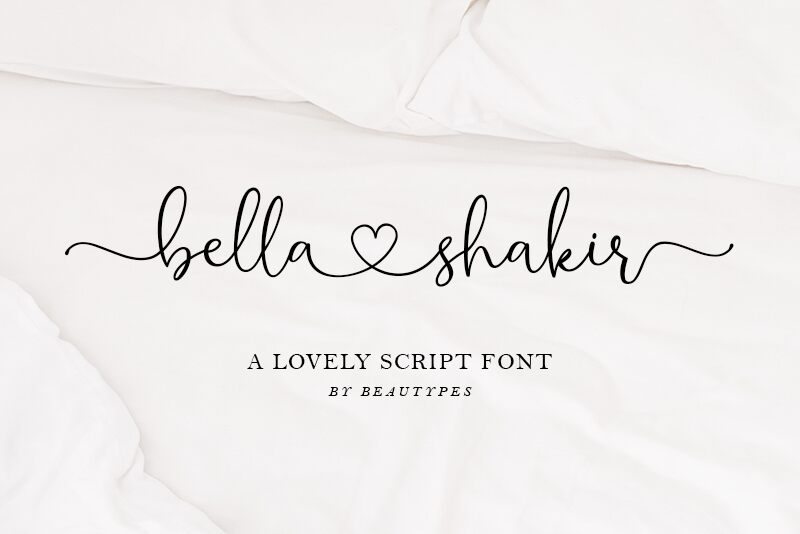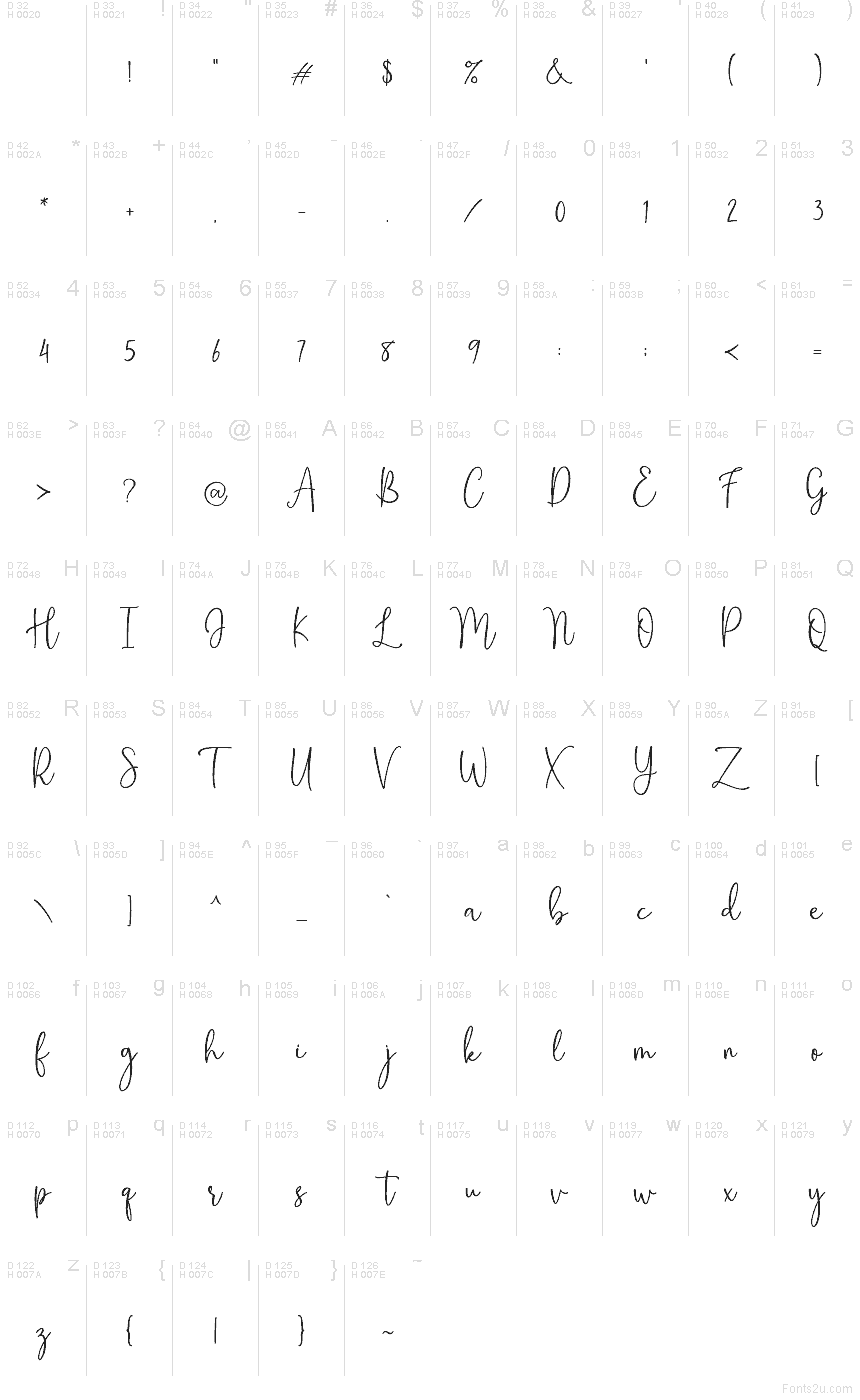
Bella Shakir font by Beautypes is a free handwritten script typeface with a breezy, looping rhythm that feels like ink flowing from a favorite gel pen. Its slim strokes, generous curves, and slightly irregular pacing capture that casual-yet-considered look you see in stylish signatures and modern branding. Letters connect smoothly without feeling stiff, giving your layouts a soft, airy texture that still reads clearly at medium sizes.
Using Bella Shakir in your work instantly adds a personal, “written just for you” touch that shines on wedding invitations, save-the-dates, logo wordmarks, social media posts, product packaging, and quote graphics. This free font works beautifully when paired with a clean sans serif for body text—let Bella Shakir handle the names and headlines, and keep the rest simple to let its graceful script style stand out.